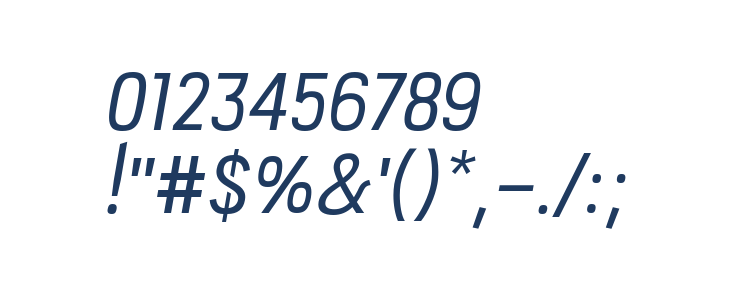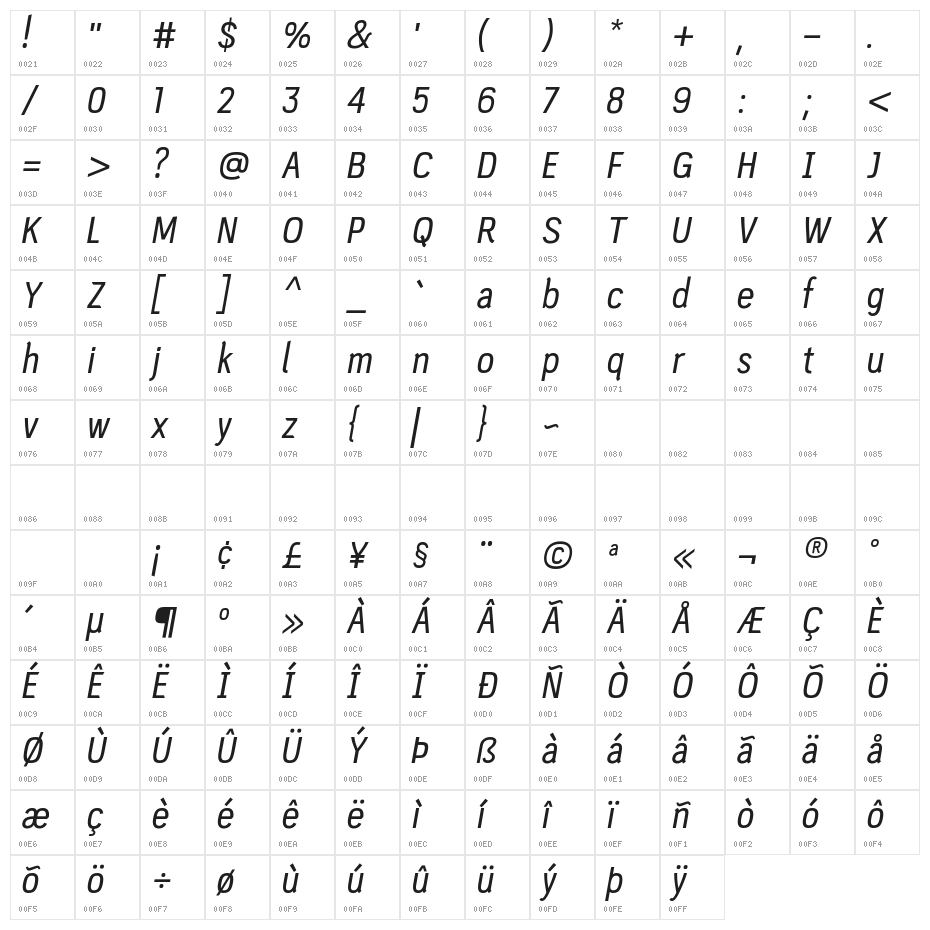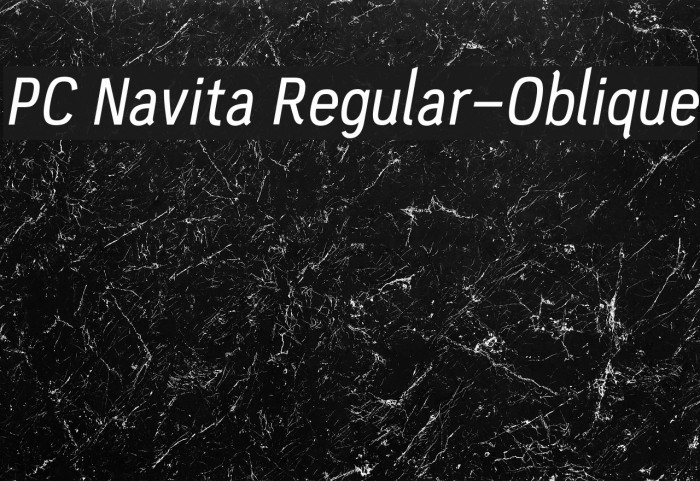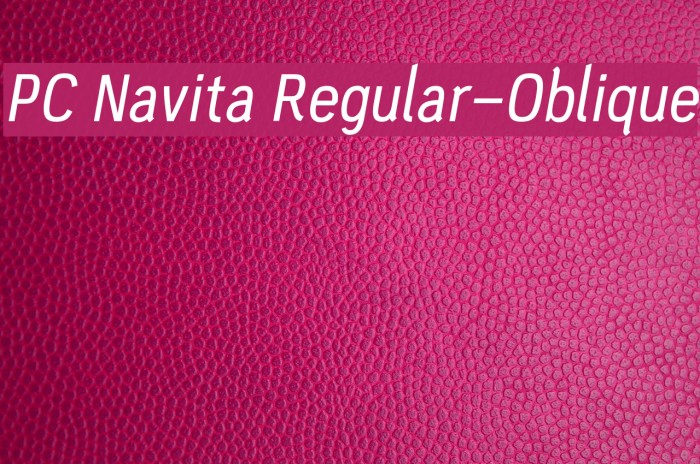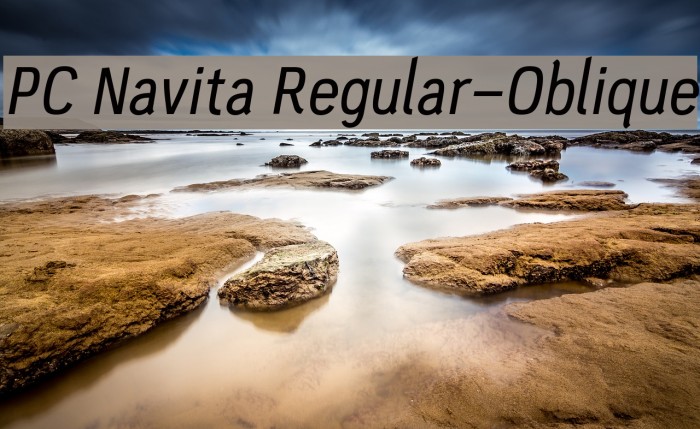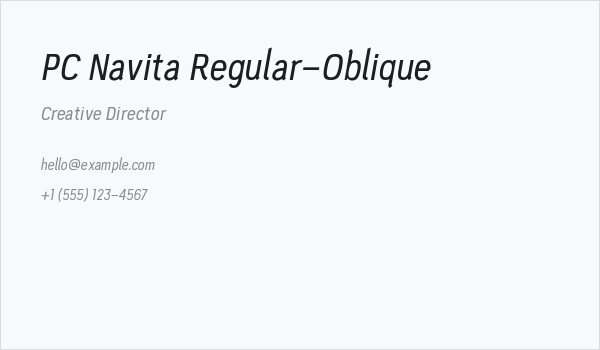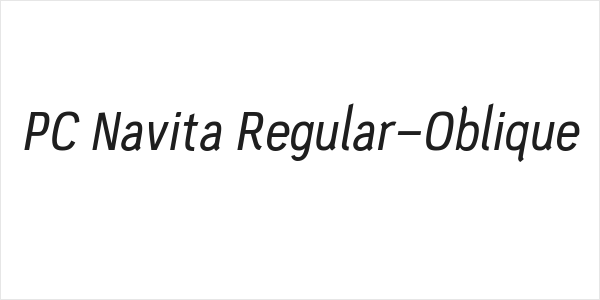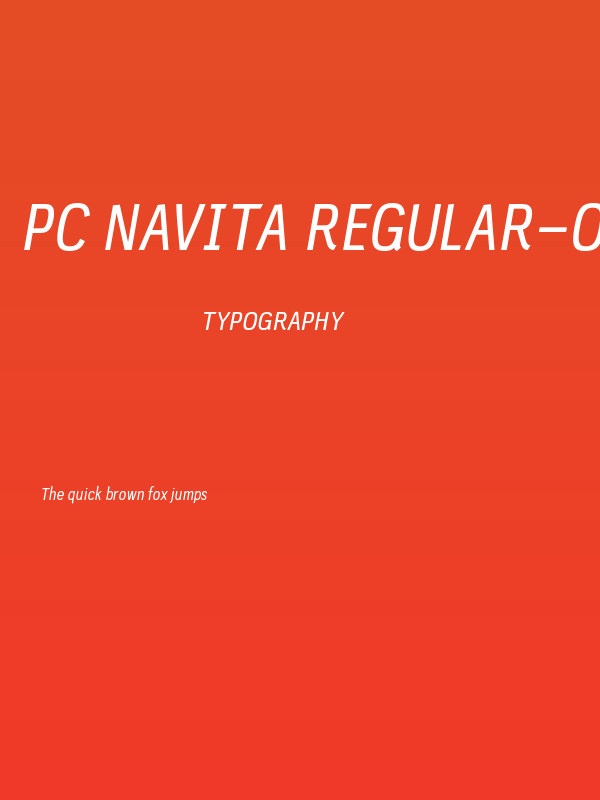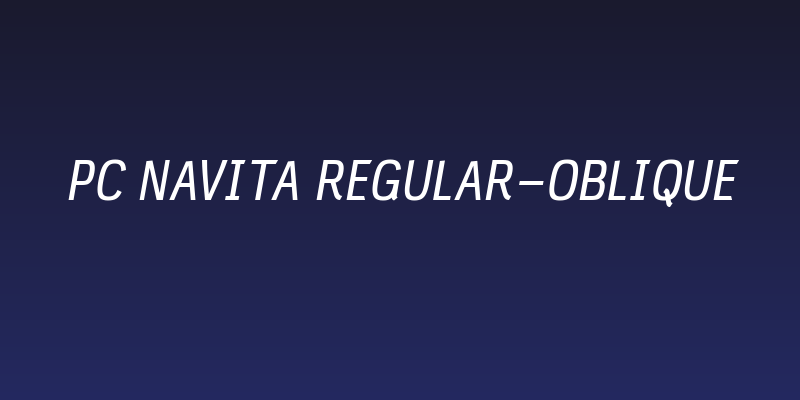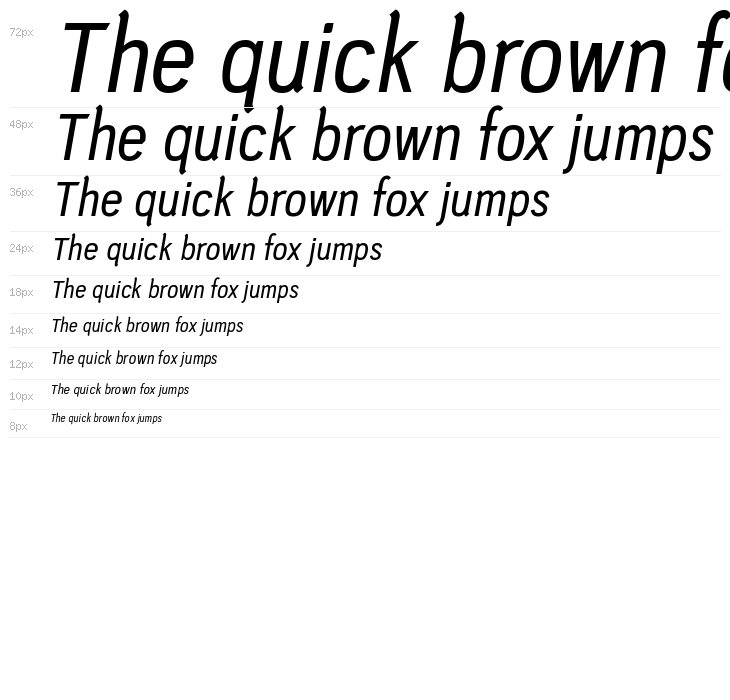
PC Navita Regular-Oblique Font
PC Navita Regular-Oblique Description
This font features a sleek and modern sans-serif style with a distinct oblique slant, giving it a dynamic and forward-moving appearance. The characters are well-proportioned, with clean lines and a uniform stroke width that maintains readability across various sizes. The uppercase letters are bold and assertive, while the lowercase letters offer a softer, more approachable feel. Numerals are clear and easily distinguishable, making them suitable for both text and numerical data. The special characters are designed to complement the overall aesthetic, ensuring consistency throughout. This font is versatile, suitable for both digital and print media, and can enhance a wide range of design projects.